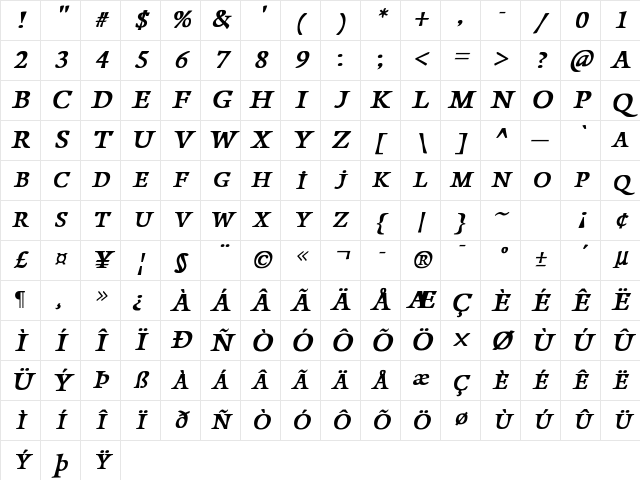
Papillons Italic
Foundry: StudioTypo
Design Context for Papillons
Papillons is a composed and adaptable typeface that performs quietly and consistently across a wide range of design contexts. The slanted form adds forward momentum and visual energy.